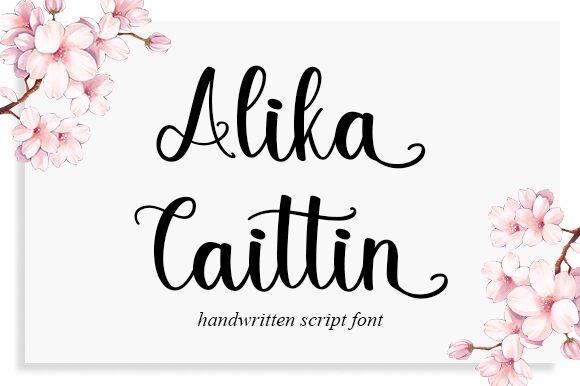
Alika Caittin
Alika Caittin is a stunning calligraphy font designed by Graphix Line Studio, perfect for adding elegance to any project. Its intricate curves and flourishes create a sense of sophistication and refinement, making it ideal for wedding invitations, luxury branding, and high-end product packaging. The semi-bold width adds depth to the letters while still maintaining legibility at smaller sizes. With its timeless appeal and versatile nature, Alika Caittin is a must-have for any designer looking to elevate their typography game. Bring your designs to life with this beautiful typeface and leave a lasting impression on your audience.